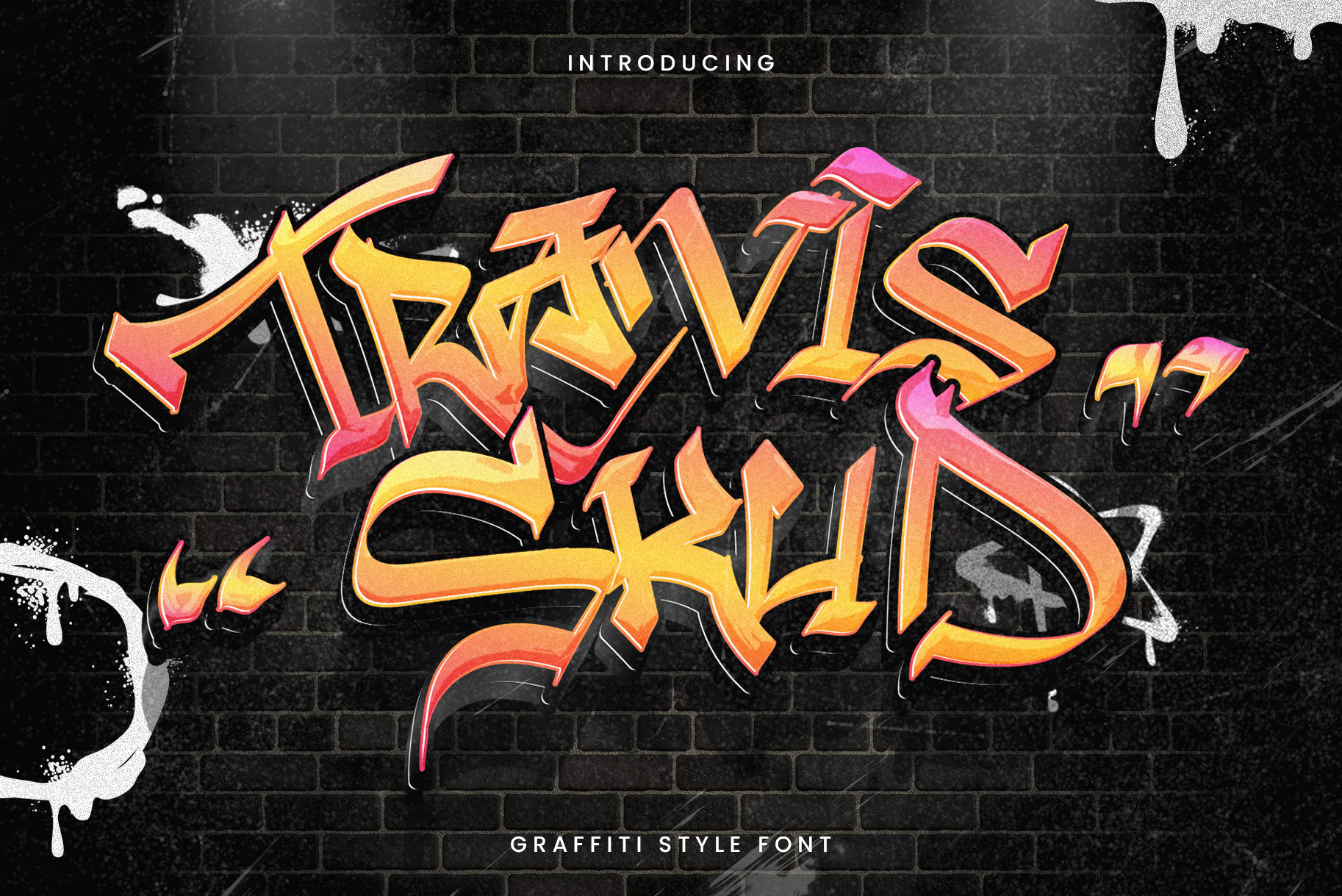
Travis Skud - Graffiti Typeface
Travis Skud is a bold graffiti display typeface inspired by street murals, spray-painted lettering, hip-hop visuals, skate culture, and contemporary urban art.
Its angular construction, exaggerated strokes, sharp terminals, and energetic proportions create a rebellious typographic personality with strong visual impact. Travis Skud is designed for projects that require expressive lettering, underground character, and an authentic street-inspired aesthetic.
Travis Skud combines hand-drawn graffiti energy with a structured display-font system. Each character features irregular angles, dynamic extensions, and distinctive shapes that make words feel custom-drawn rather than traditionally typeset.
The font works especially well for large headlines, logos, poster titles, album artwork, merchandise graphics, event promotions, and youth-oriented branding. Its powerful silhouette remains recognizable when combined with outlines, shadows, gradients, chrome effects, spray textures, and layered color treatments.
Use Travis Skud as the main focal typeface, then pair it with a condensed sans serif, grotesque, or monospaced font for captions and supporting information.
Bold graffiti-inspired display style
Sharp and angular letter construction
Dynamic extensions and exaggerated strokes
Hand-drawn urban personality
Strong readability at medium and large sizes
Ideal for headlines, logos, names, and short phrases
Works well with outlines, shadows, gradients, and layered effects
Suitable for streetwear, skate, hip-hop, and music visuals
Easy to pair with condensed sans serif and grotesque fonts
Strong visual impact for branding and promotional graphics
Stylistic Alternates: no dedicated alternate characters are clearly confirmed in the supplied preview
Ligature Pairs: the following 18 combinations are not clearly confirmed in the supplied preview: st, br, cr, ct, fr, ist, op, or, ox, th, Tr, tt, wn, ff, fi, fl, ffi, ft
Multilingual Support: Western European characters with diacritics, including À, Á, Â, Ç, É, Ñ, Ø, Ü, and more
Use the font at medium or large sizes to preserve its angular shapes and graffiti details. It works best for logos, headlines, titles, product names, posters, and short statements rather than long paragraphs.
Experiment with contrasting outlines, offset shadows, bright gradients, spray textures, and three-dimensional effects to create custom graffiti treatments. Pair Travis Skud with a clean condensed sans serif for dates, captions, credits, and supporting information.
Best used at medium and large display sizes
Small sizes may reduce the clarity of sharp graffiti details
Extended strokes may require additional spacing or manual positioning